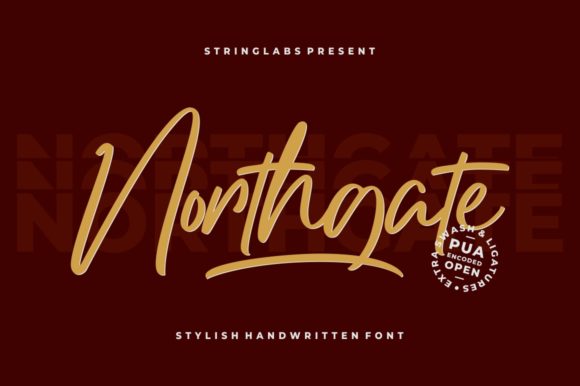
Introducing Northgate Font: A Bold and Unique Addition to Your Crafting Toolbox
In the world of crafting, fonts play a crucial role in bringing creativity to life. Whether you’re a DIY enthusiast, a small business owner, or a professional craftsperson, having the right font can make all the difference in creating visually appealing and effective designs. This is where Northgate Font comes in – a bold and unique script that is sure to elevate your crafting game.
The Story Behind Northgate Font
Northgate Font is a carefully crafted script that boasts an incredibly bold and unique style. Its creators aimed to design a font that would stand out from the crowd, offering a fresh and exciting alternative to more traditional fonts. The result is a script that exudes confidence, energy, and creativity.
The inspiration behind Northgate Font lies in its name. “Northgate” evokes a sense of grandeur and monumentality, suggesting a strong and sturdy presence. This is reflected in the font’s robust and assertive design, which commands attention and makes a lasting impression.
Key Features of Northgate Font
So, what sets Northgate Font apart from other scripts on the market? Here are some of its key features:
- Bold and Unique Style: Northgate Font boasts an incredibly bold and unique style that is sure to turn heads. Its thick lines and dramatic flair make it perfect for creating eye-catching designs.
- Highly Versatile: Despite its bold nature, Northgate Font is surprisingly versatile. It can be used for a wide range of crafting applications, from signage and posters to social media graphics and digital art.
- Easily Readable: Despite its bold and ornate design, Northgate Font remains easily readable, even at smaller sizes. This makes it perfect for use in a variety of contexts, from titles and headings to body text.
How to Use Northgate Font in Your Crafting Projects
Northgate Font is an incredibly versatile script that can be used in a wide range of crafting projects. Here are some ideas to get you started:
- Signage and Posters: Use Northgate Font to create eye-catching signage and posters for your business, event, or personal project.
- Social Media Graphics: Add a touch of personality to your social media graphics with Northgate Font. It’s perfect for creating engaging and shareable content.
- Digital Art: Northgate Font can add a bold and unique touch to your digital art. Experiment with different colors, textures, and effects to create truly stunning pieces.
- Crafting Tutorials and Instructions: Use Northgate Font to create clear and easily readable instructions for your crafting tutorials.
Tips and Tricks for Getting the Most Out of Northgate Font
To get the most out of Northgate Font, here are some tips and tricks to keep in mind:
- Experiment with Different Sizes: Northgate Font looks great at a range of sizes, from small and delicate to large and dramatic. Experiment with different sizes to find the one that works best for your project.
- Play with Color: Northgate Font looks great in a range of colors, from bold and bright to subtle and muted. Experiment with different colors to find the one that works best for your project.
- Combine with Other Fonts: Northgate Font can be paired with a range of other fonts to create interesting and dynamic designs. Experiment with different font combinations to find the one that works best for your project.
| Author | StringLabs |
Northgate Font is an incredibly bold and unique script that is sure to elevate your crafting game. With its robust and assertive design, highly versatile nature, and easily readable text, it’s perfect for a wide range of crafting applications. Whether you’re a DIY enthusiast, a small business owner, or a professional craftsperson, Northgate Font is a great addition to any crafter’s toolbox.